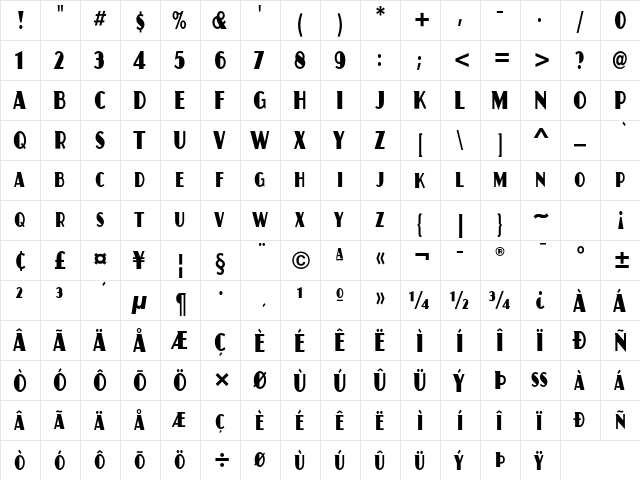
Juanita Condensed ITC Std Regular
| Designer | Luis Siquot |
Design Context for Juanita Condensed ITC Std Typeface
Juanita Condensed ITC Std is a composed and adaptable typeface that performs quietly and consistently across a wide range of design contexts. The condensed width makes it efficient for tight spaces without sacrificing legibility.